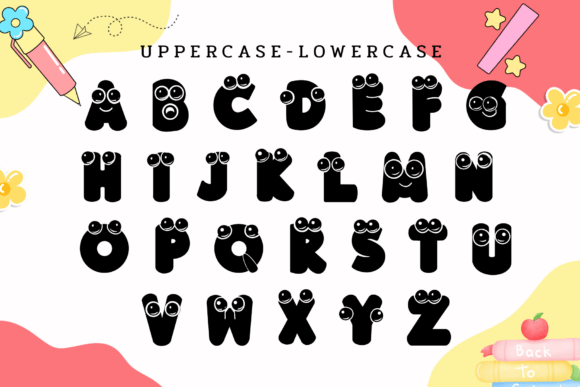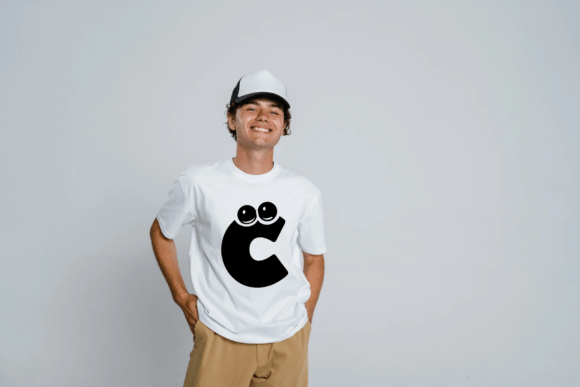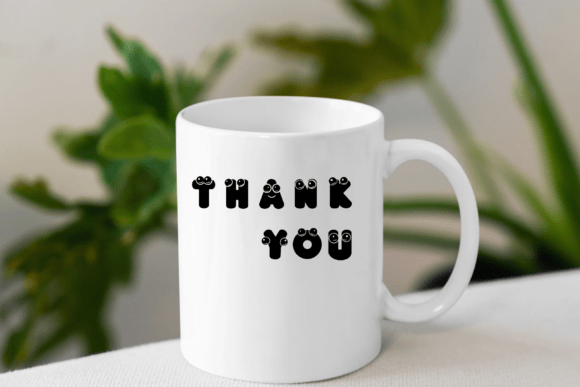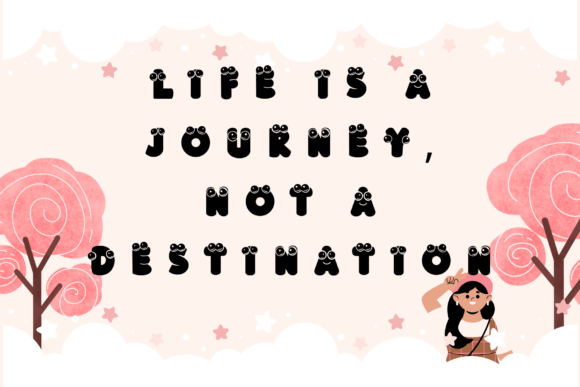
Meet the ABCs of Whimsy: The Abc Buddy Font
Do you remember the thrill of learning the alphabet for the first time? The colorful flashcards, the sing-along songs, and the joy of watching those letters come to life? For many of us, that magical moment sparked a lifelong love affair with language and creativity. And now, designers have the perfect tool to recapture that enchantment – the Abc Buddy Font.
This charming decorative font is designed with a child-friendly aesthetic in mind, featuring soft curves, exaggerated structures, and – the pièce de résistance – cartoon-style eyes nestled into each letterform. The result is a typeface that’s not only visually engaging but also full of personality and movement. Whether you’re creating educational content, children’s products, or classroom materials, the Abc Buddy Font is sure to bring a touch of whimsy and wonder to your designs.
Key Features of Abc Buddy Font
- Font Family: Abc Buddy Font is a unique, modern sans-serif font designed for various digital applications.
- Font Size: Abc Buddy Font is designed to be highly legible at various font sizes, from 10pt to 24pt, making it ideal for body text and headings.
- Resolution: Optimized for high-resolution displays, Abc Buddy Font supports resolutions up to 300 DPI, ensuring crisp and clear typography.
- Unique Characteristics: The font features a distinctive, rounded sans-serif design with a friendly and approachable feel, making it perfect for branding and marketing materials.
- Language Support: Abc Buddy Font supports a wide range of languages, including Latin, Cyrillic, and Greek alphabets, as well as many non-Latin scripts.
Abc Buddy Font Review
Overall, I think the Abc Buddy Font is a fun, playful font that can add a touch of whimsy to your designs. It’s perfect for kids’ projects, birthday invitations, or any other project where you want to add a sense of innocence and wonder. ✨
- The font is highly legible, even at small sizes, making it a great choice for body text or captions.
- The font is highly customizable, with a wide range of color options and styles to choose from.
- The font is well-suited for digital use, with clear and crisp rendering on screens.
- The font may not be the best choice for formal or professional projects, as it can come across as too playful or childish.
- The font may not be suitable for complex text layouts, as it can be prone to letter spacing issues.
- The font may not be compatible with all operating systems or browsers, which could lead to display issues.
- Some letters in the font are a bit awkward, such as the “q” which is slightly odd.
Overall, I would give the Abc Buddy Font 3.5 out of 5 stars. It’s a fun and playful font that’s perfect for certain types of projects, but may not be the best choice for others. ⚠️
Abc Buddy Font is perfect for creating a playful and whimsical design. Here are some tips to get the most out of it:
- Use it for children’s book covers, nursery decor, or educational materials.
- Combine it with bright and bold colors to create a fun and energetic design.